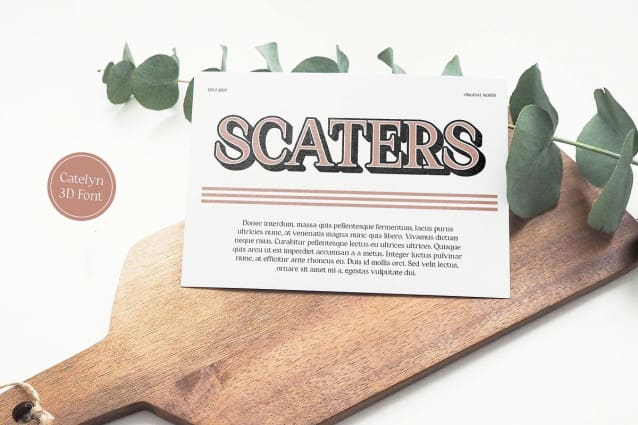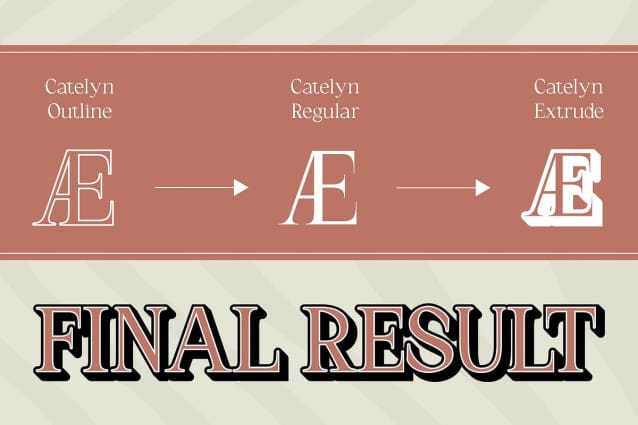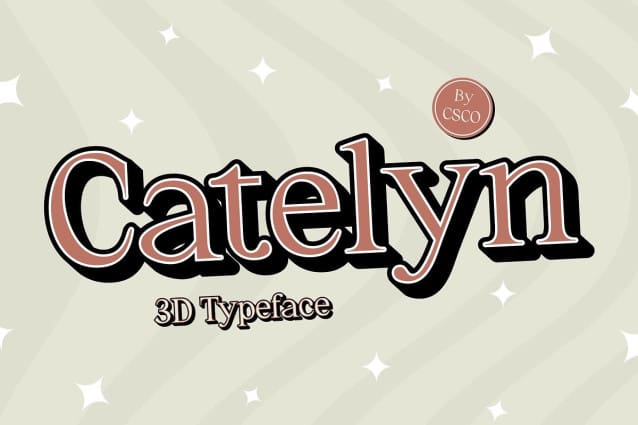
Catelyn 3D Font
Catelyn 3D Font is a modern serif font that elegantly balances sophistication with contemporary design. Its sleek forms and delicate details come together to create an impression of refined luxury, making it a standout choice for various upscale applications. The clean, well-structured serifs contribute to an overall sense of professionalism and class, ensuring that your text conveys a message of quality and style.
Dynamic 3D Effects for Added Visual Impact One of the key features of Catelyn 3D is its stunning 3D effect, which enhances each letter’s depth and dimension. This visual dimension brings the typeface to life, making the text appear more vibrant and engaging. Whether in print or digital formats, the 3D effect captures the eye and draws attention, ensuring your design stands out in a crowded marketplace.
Perfect for High-End Branding and Editorial Projects Catelyn 3D shines in high-end branding, luxury editorial work, and design projects that aim to communicate a modern and professional image. Its elegant appearance is well-suited for fashion magazines, upscale advertisements, and premium product packaging. The font’s ability to convey sophistication makes it an ideal choice for brands that want to project a polished and refined identity.